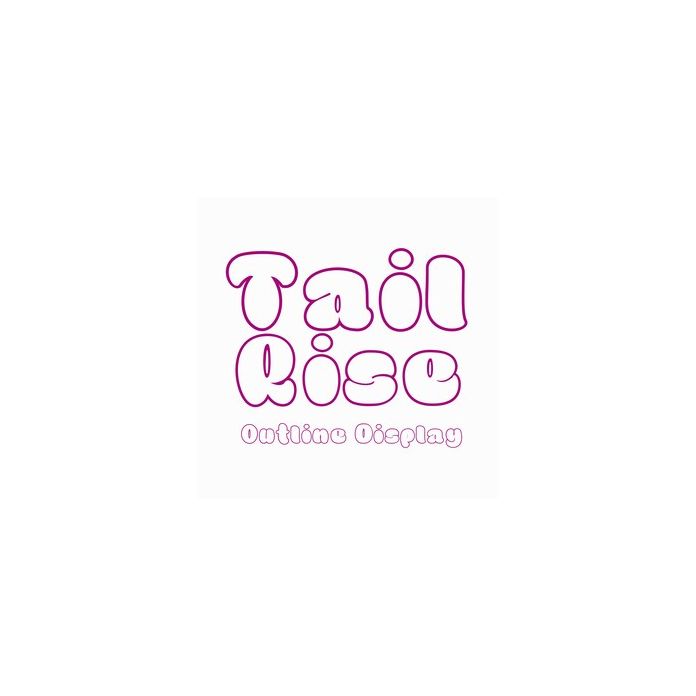
The Tail Rise Outline display font design is suitable for the beginning of the year birthday party logo display, great for event projects, products, crafts, invitations, etc. Includes alphabet, numbers, and punctuation.